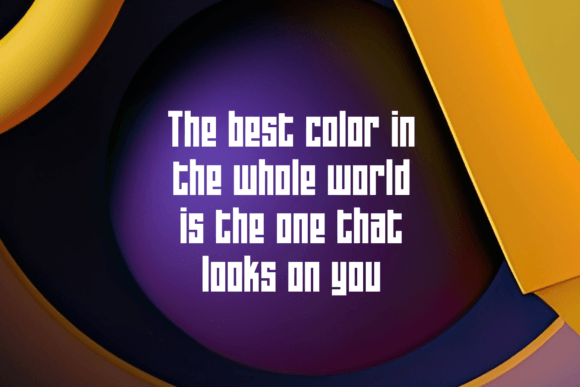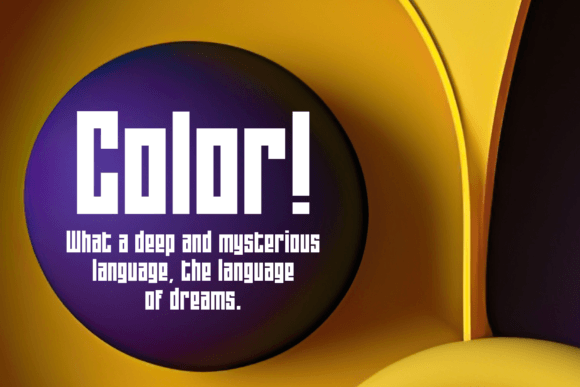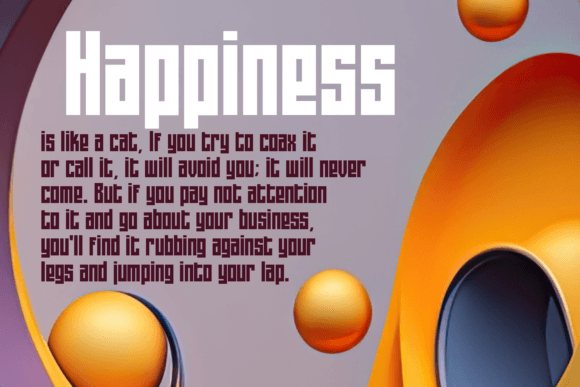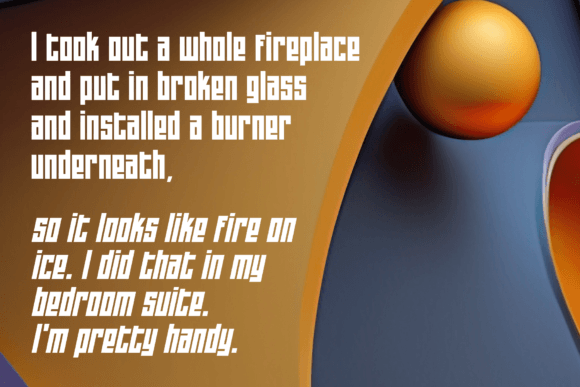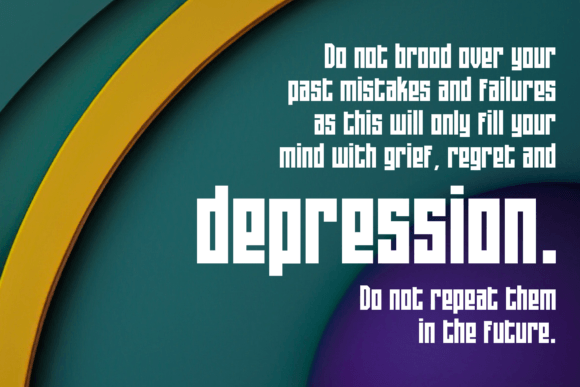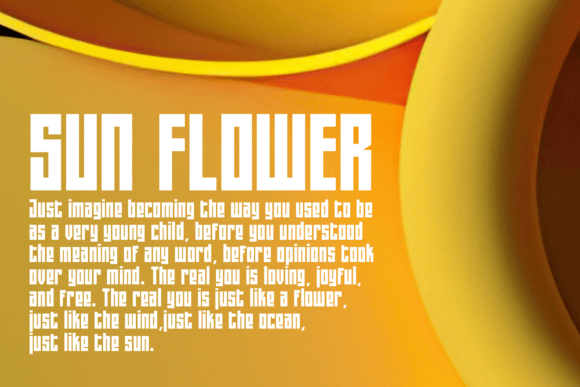
The Perfect Blend of Style and Legibility: Unveiling Alvez Font
Have you ever stared at a blank page, pen in hand, waiting for that perfect idea to strike? For designers, moments like these can be both exhilarating and intimidating. But what if you had a secret weapon to elevate your creativity and give your designs that extra oomph? Enter Alvez Font, a contemporary font style that’s sure to make a statement.
Alvez Font is more than just a pretty face – it’s a versatile tool designed to add a touch of sophistication to any design project. With its clean lines and bold appearance, it’s perfect for headlines, logos, and other visually striking elements. Whether in print or digital media, this font style ensures clear and legible text while effectively conveying a message or brand identity.
Alvez Font Key Features
- Font Family: Alvez Font is a sans-serif typeface, designed to be clean, modern, and highly legible.
- Character Count: The font family includes a wide range of characters, including uppercase and lowercase letters, numerals, punctuation marks, and special characters.
Alvez Font Review
I recently had the chance to work with the Alvez font, and I must say it’s an interesting combination of styles. ✨ One of the things that stood out to me was its unique blend of modern and classic elements. The font’s geometric shapes and clean lines give it a modern feel, while its rounded edges and subtle flair add a touch of vintage charm.
Here are some of the things that work well with the Alvez font:
- ✨ Unique blend of modern and classic styles
- ✨ Highly legible, even at small font sizes
- ✨ Works well for both body copy and headings
- ✨ Supports a wide range of languages
- ⚠️ Limited character set (some languages may not be fully supported)
- ⚠️ May not be the best choice for very formal or traditional designs
- ⚠️ Can be difficult to read in certain color schemes or backgrounds
Overall, I think the Alvez font is a solid choice for designers who want a unique and versatile font. With a little experimentation and tweaking, it can be a great addition to your design arsenal.
Tips for getting the most out of Alvez Font in Canva: Use it for creative headings, quotes, or titles to add a touch of elegance to your designs.
Tips for getting the most out of Alvez Font in Adobe Photoshop/Illustrator: Use it for creating custom typography, logos, or graphics that require a unique and elegant font style.
Tips for getting the most out of Alvez Font in PowerPoint/Word: Use it for creating professional-looking presentations, reports, or documents that require a touch of sophistication.
Alvez Font is ideal for:
- Creative headings and titles
- Typography-based graphics